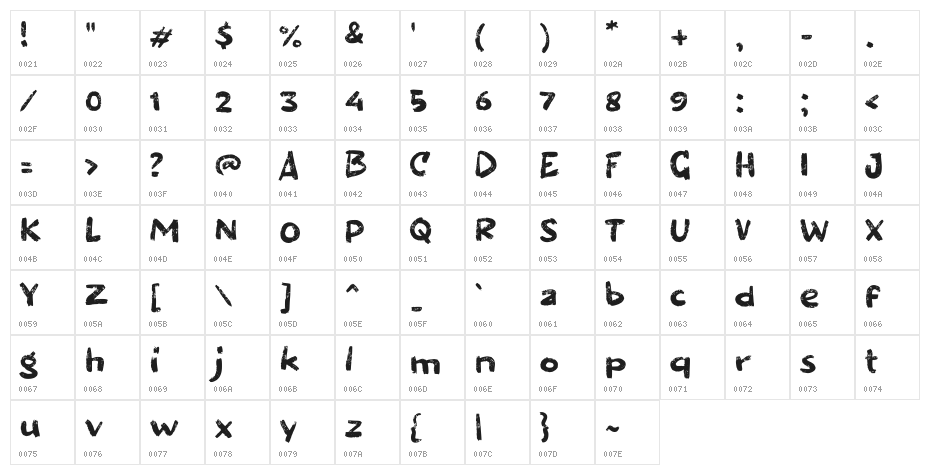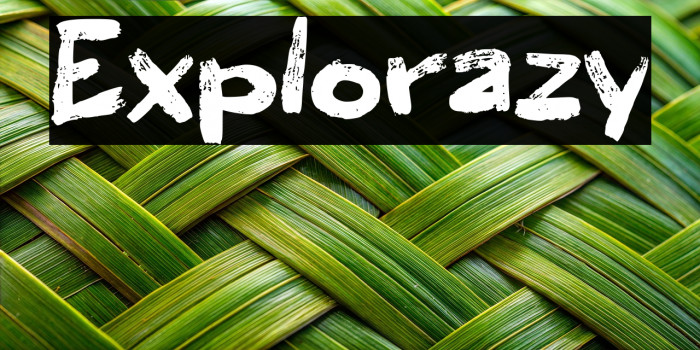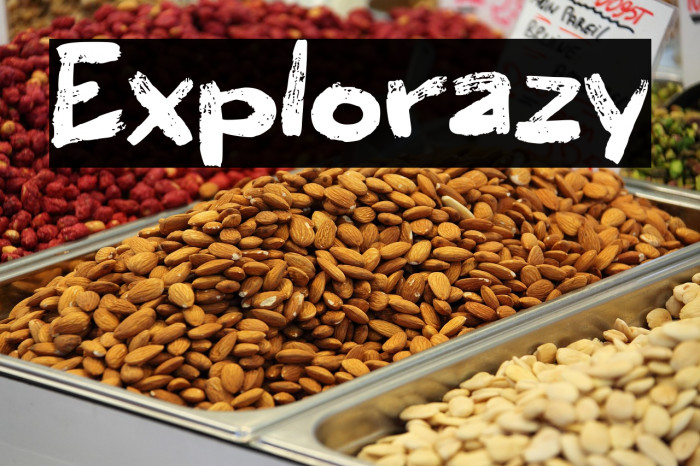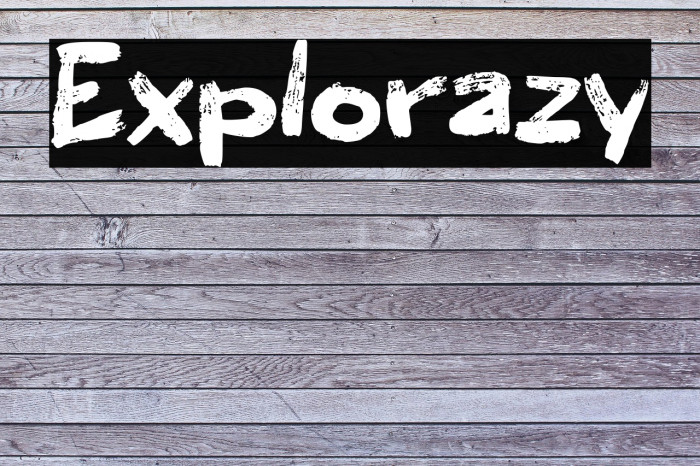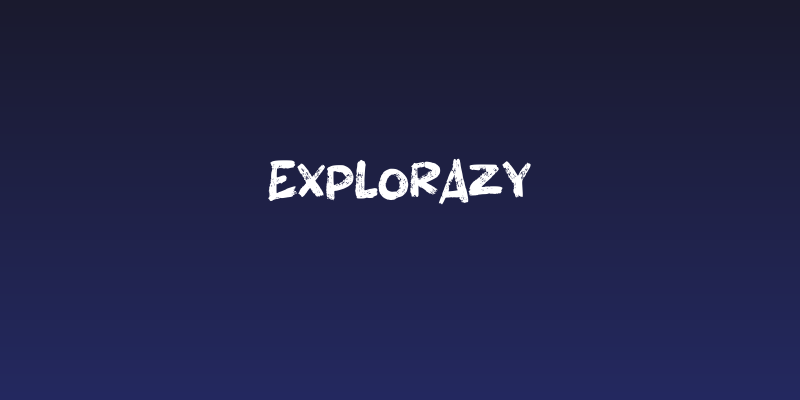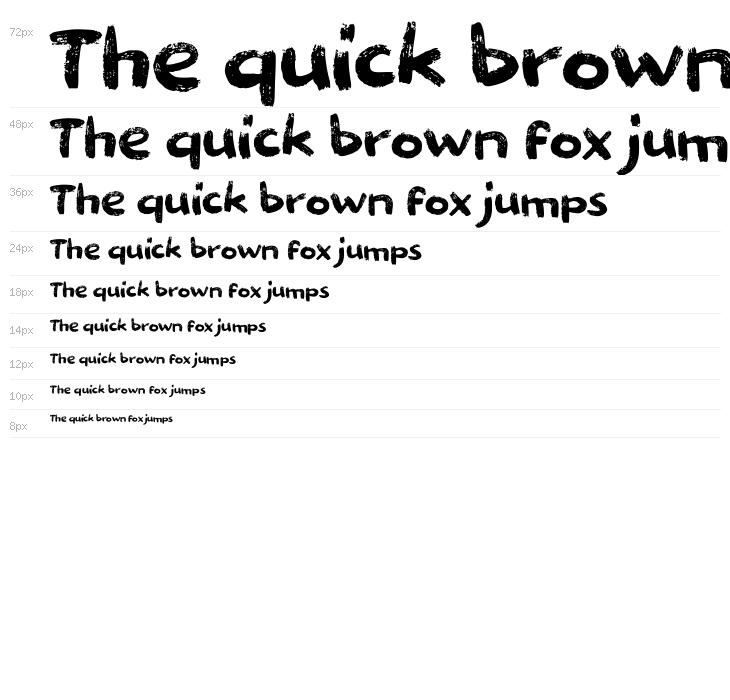
Explorazy Font
Explorazy Description
This font features a bold, distressed style with a hand-painted appearance. The characters have a rough texture, giving them a grunge or urban feel. The uppercase and lowercase letters maintain a consistent weight, with slightly irregular edges that add to the handmade aesthetic. The numerals and special characters follow the same design, ensuring a cohesive look across all elements. This font's unique style makes it stand out, perfect for projects that require a bold, artistic touch.
| Overall Style | Grunge, Urban, Artistic |
| Proposed Projects | Ideal for posters, album covers, streetwear branding, and artistic projects that require a bold statement. |